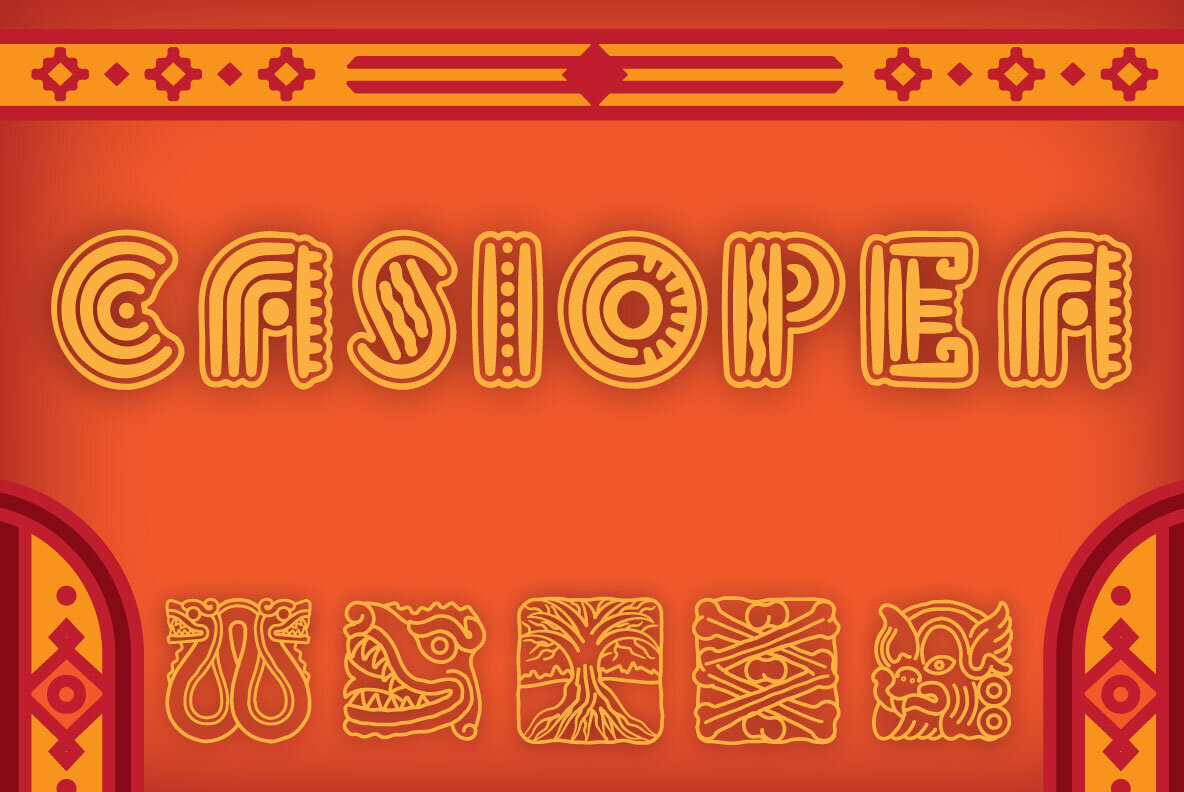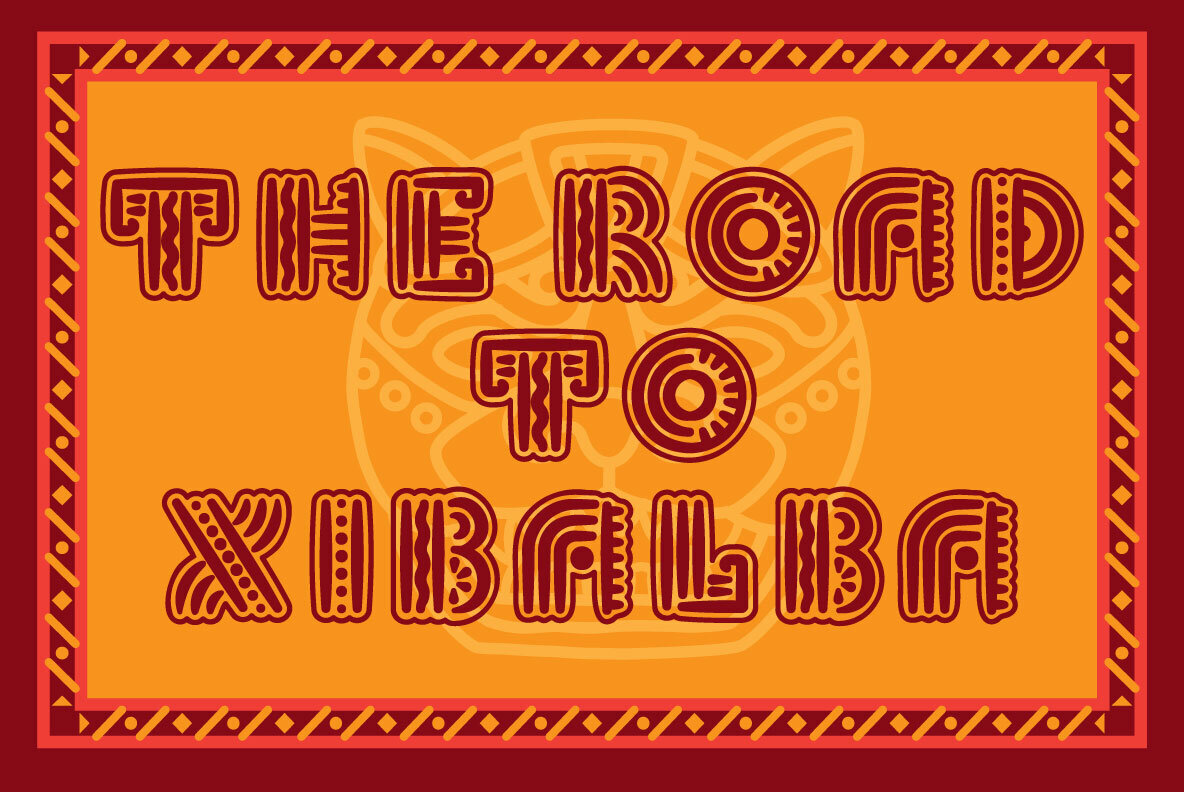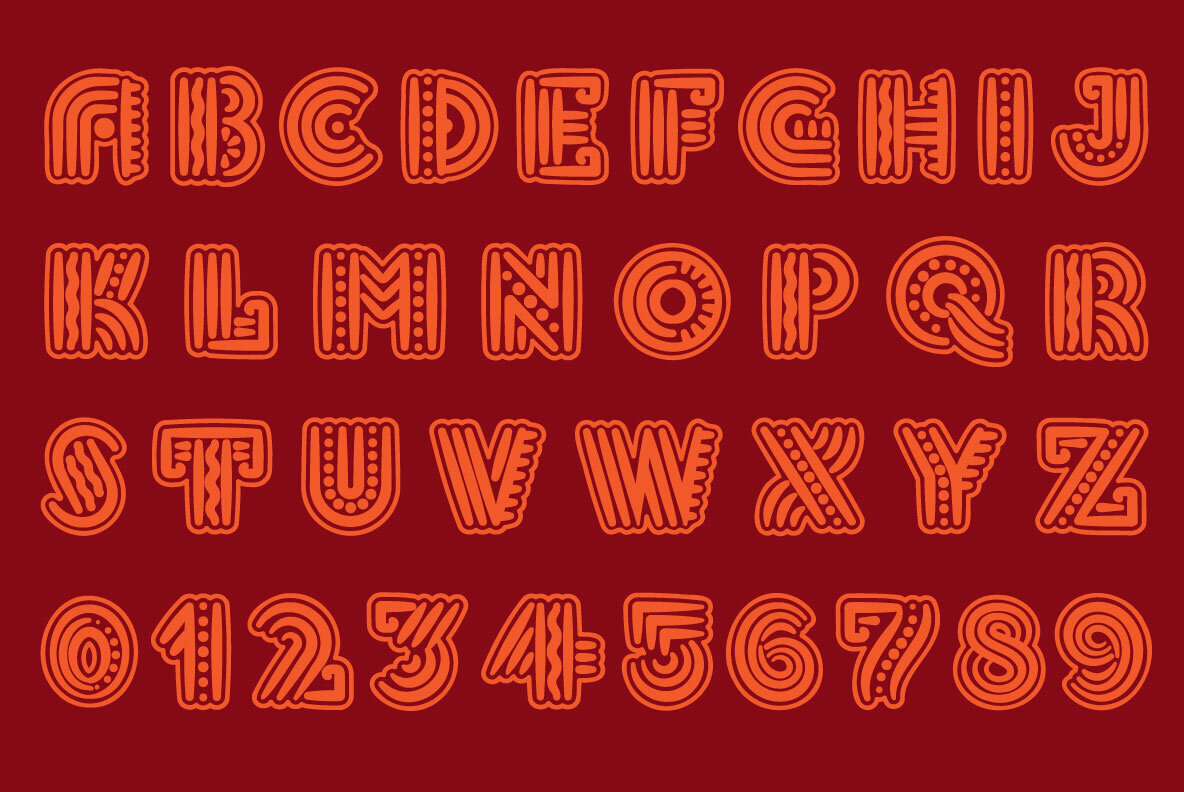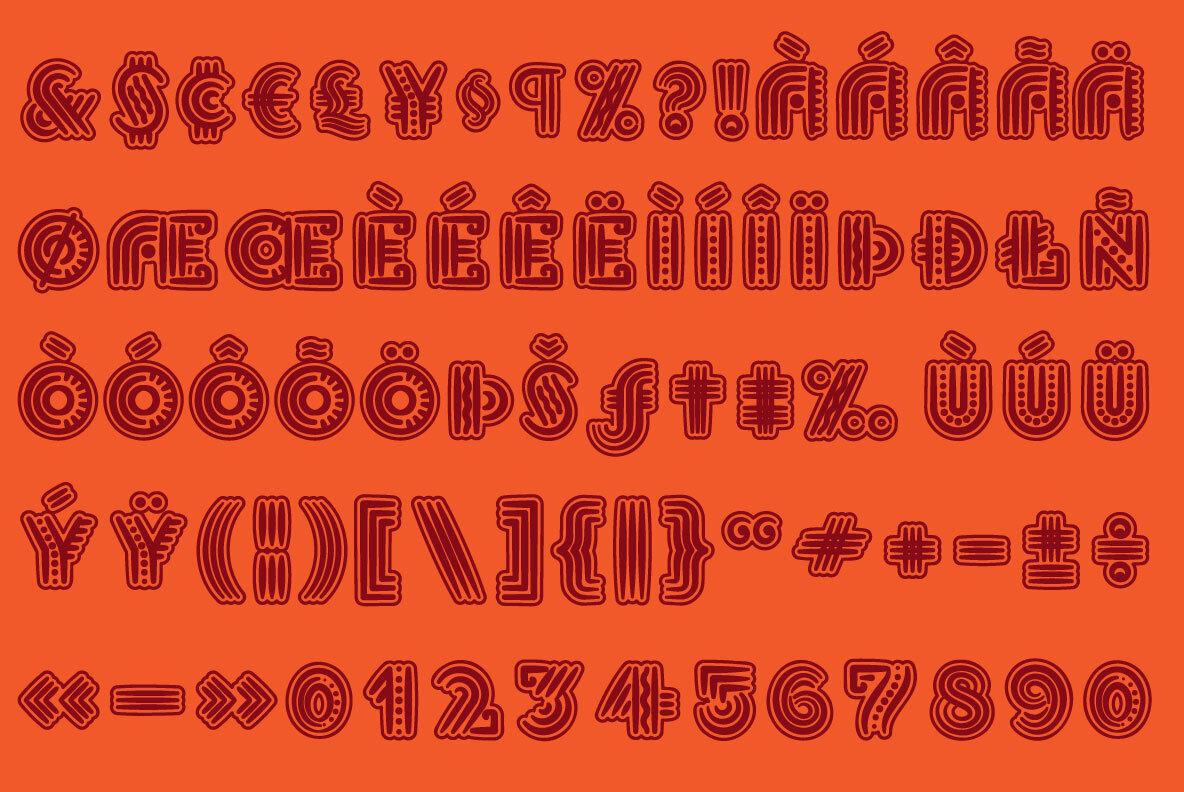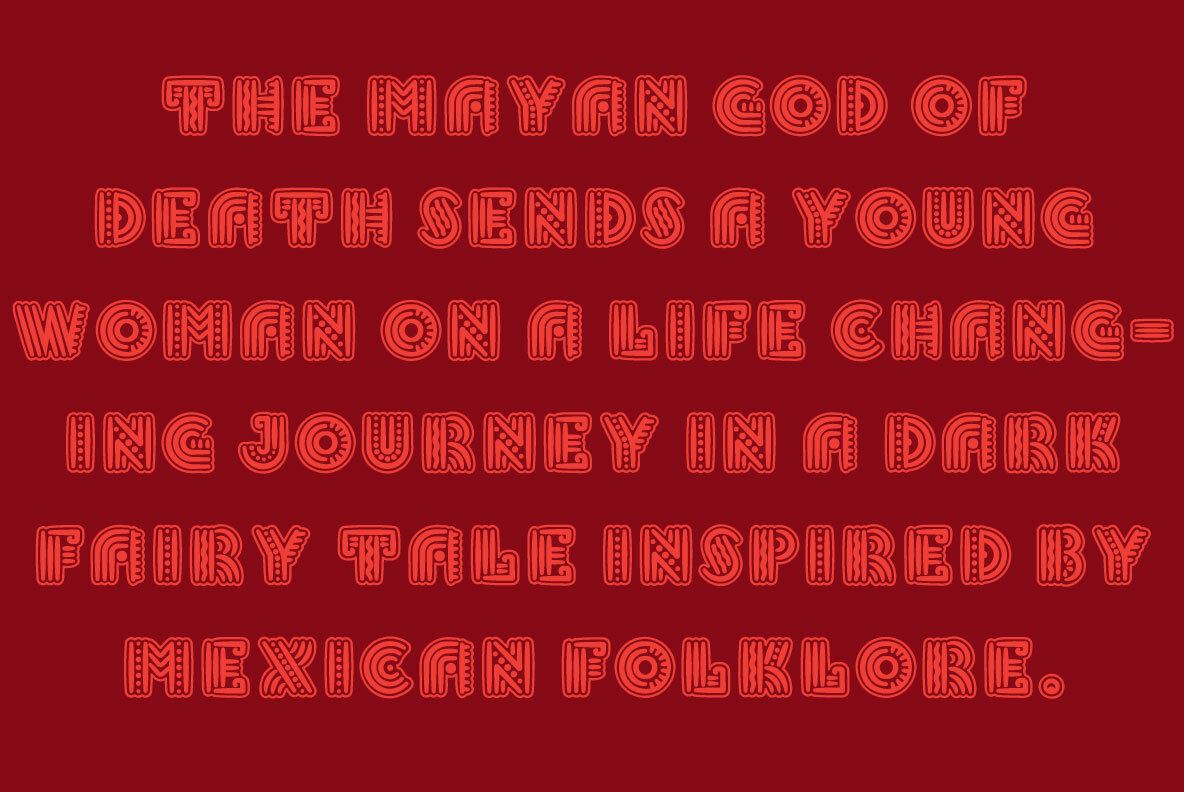
Casiopea Font
Casiopea Regular
Casiopea is a captivating display font drawing inspiration from the rich and intricate tapestry of Mayan mythology. This font masterfully captures the essence of mythical creatures, such as jaguars and serpents, along with celestial beings through its sweeping curves, angular cuts, and intricate details. These elements evoke the visual textures found in ancient stone glyphs. Named after a brave character from Mexican folklore, Casiopea embodies the tale of a young girl who ventures into the Mayan underworld of Xibalba, accompanied by a fallen god seeking redemption.
Casiopea skillfully balances traditional Mayan iconography with contemporary design, creating a seamless connection between the past and present. Ideal for titles, posters, and branding projects with a cultural or mythological theme, this font stands out for its compelling blend of history, storytelling, and artistry. Casiopea commands attention with its unique aesthetic, making it an excellent choice for any design work that requires a touch of mythological depth.